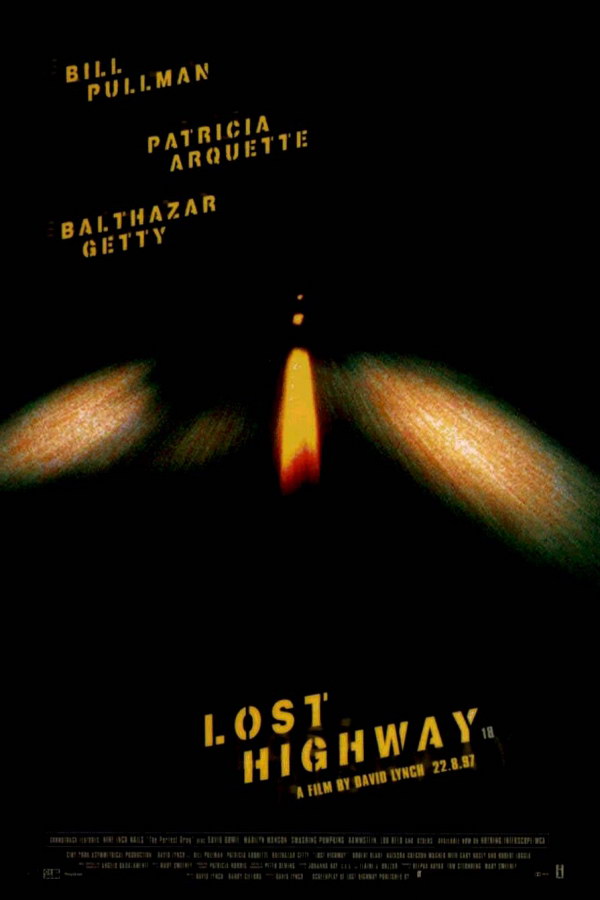
Lost Highway Font
The theatrical release poster for Lost Highway features a stencil-style title, that closely resembles a font called Lost Highway. This font is available for free download from the Fonts Used Section.